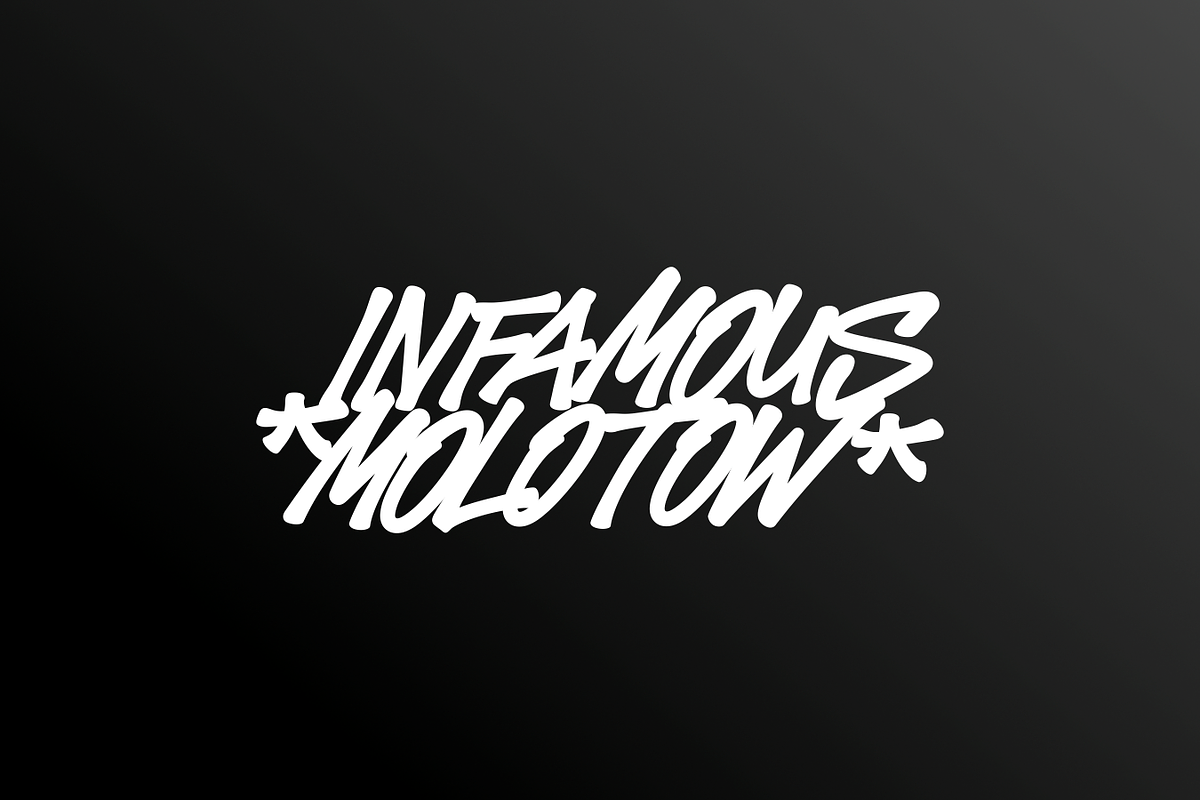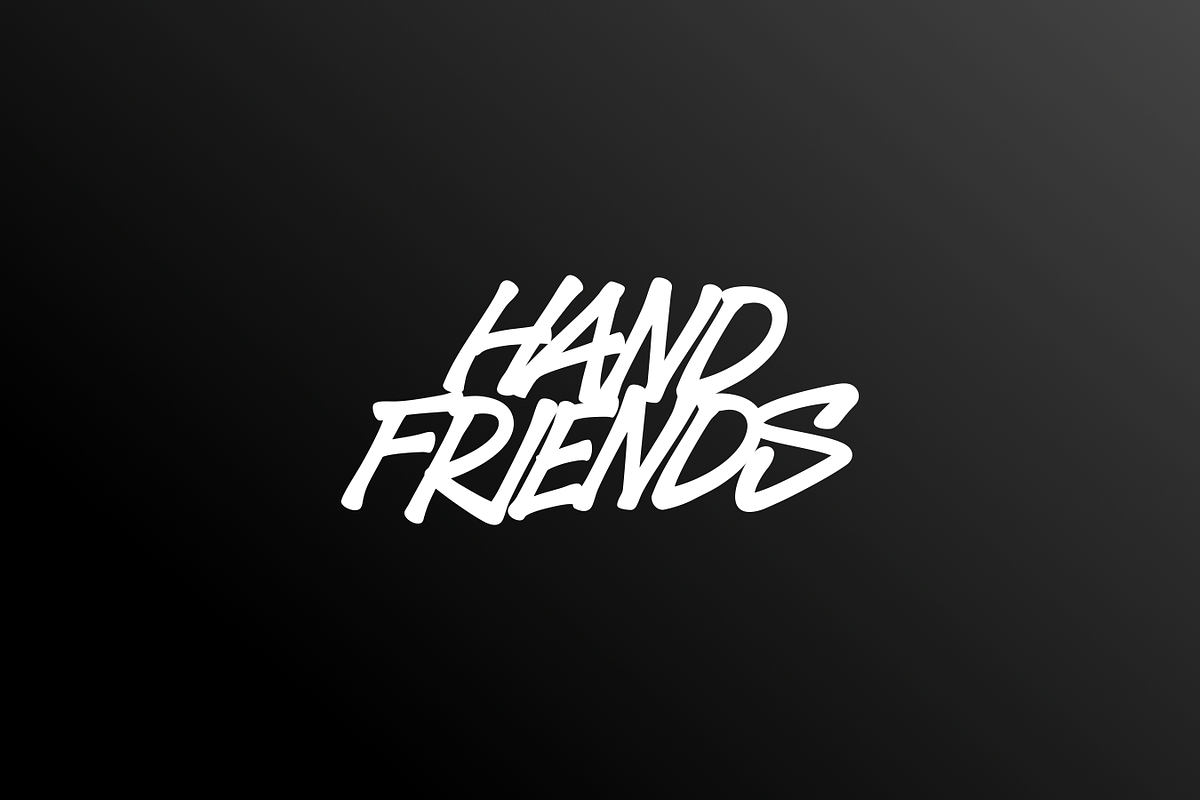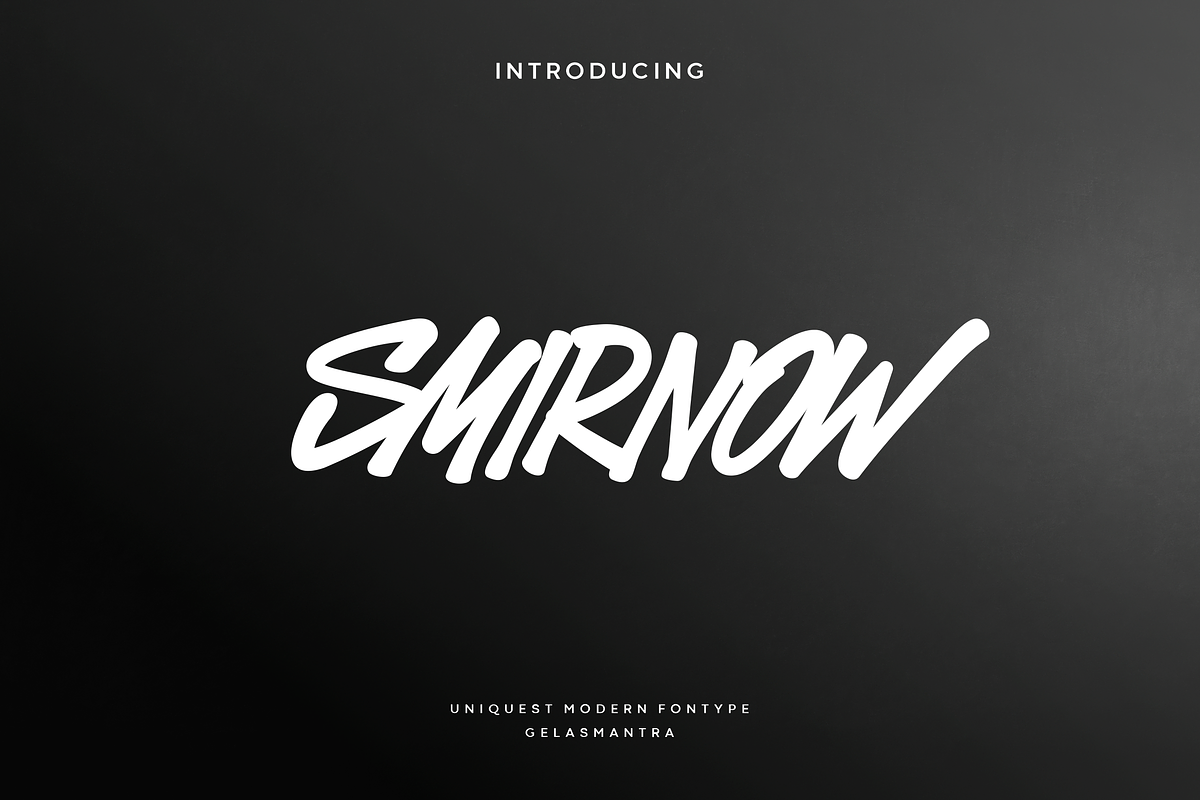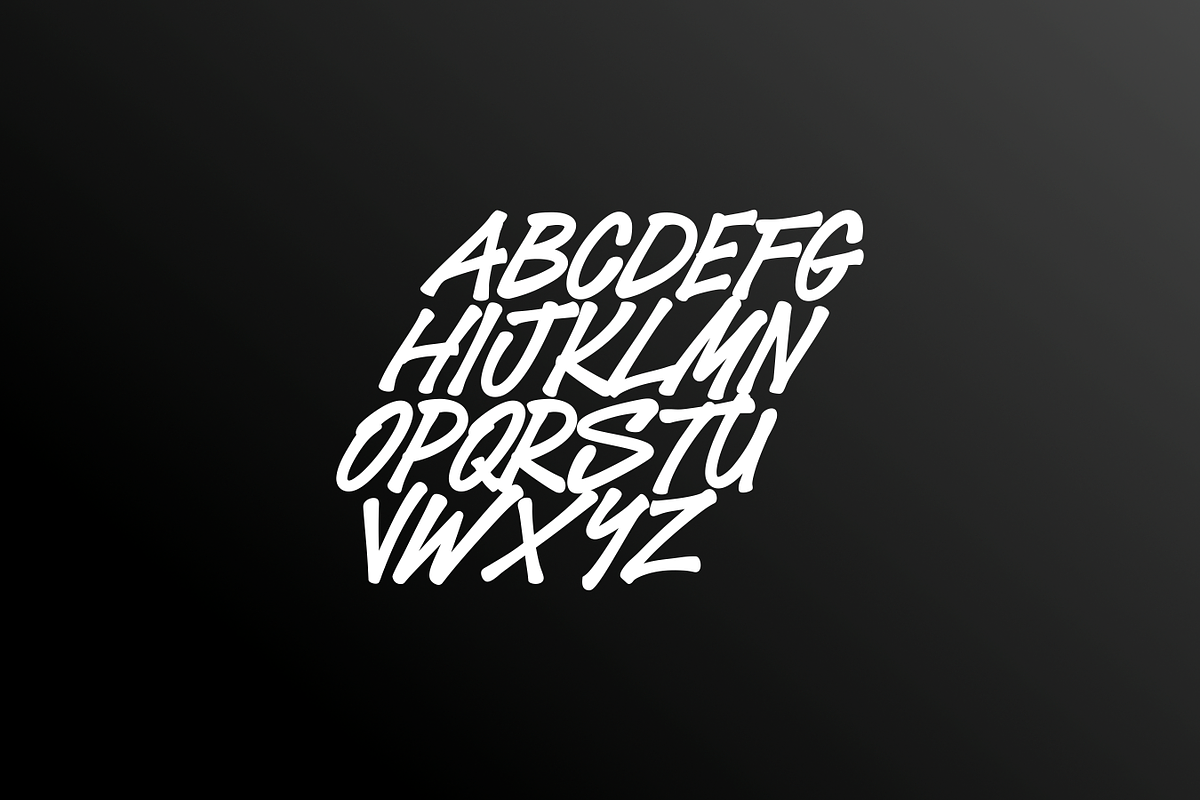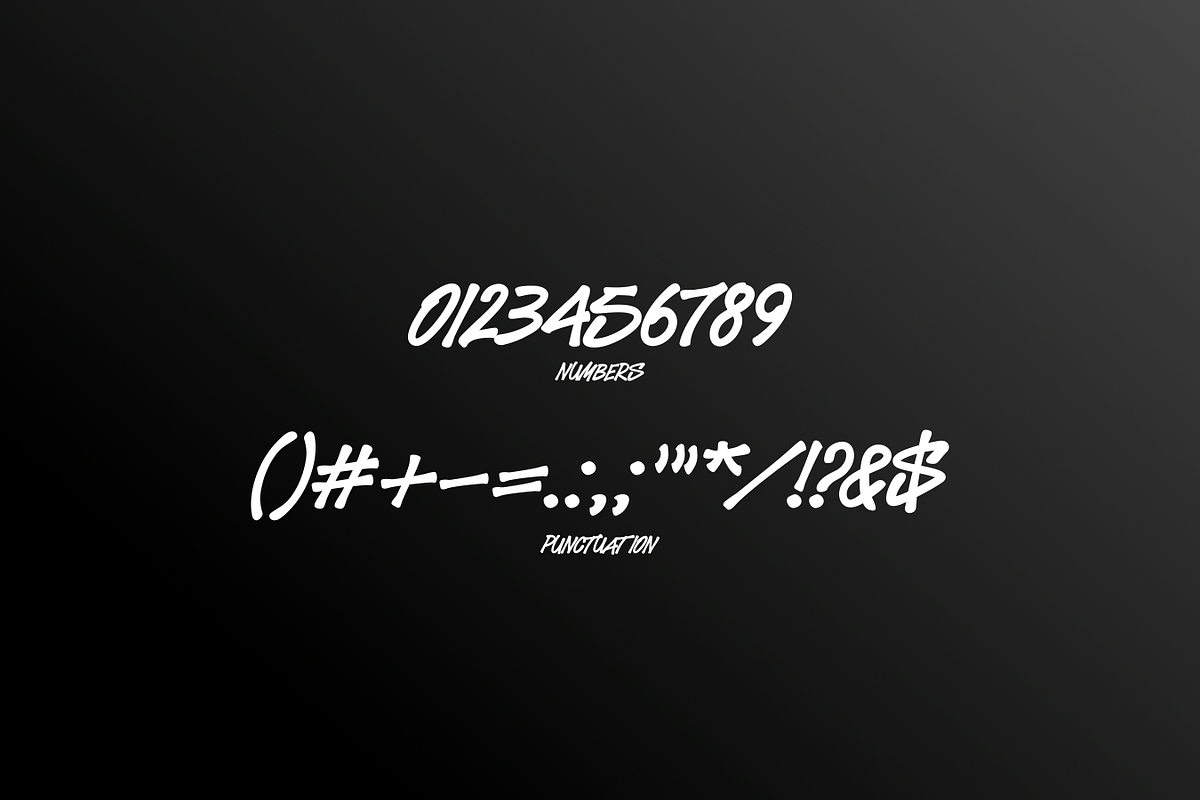
Smirnow
Smirnow is a graffiti style marker font, with bold, backwards italic characters and fun with a slight emphasis on each letter to give you extra creative work. The Smirnow font is great for designing illustrations, logos, social media, titles, short text even long text letters and great for your secondary text fonts with sans or serif, create stunning masterpieces with this font.